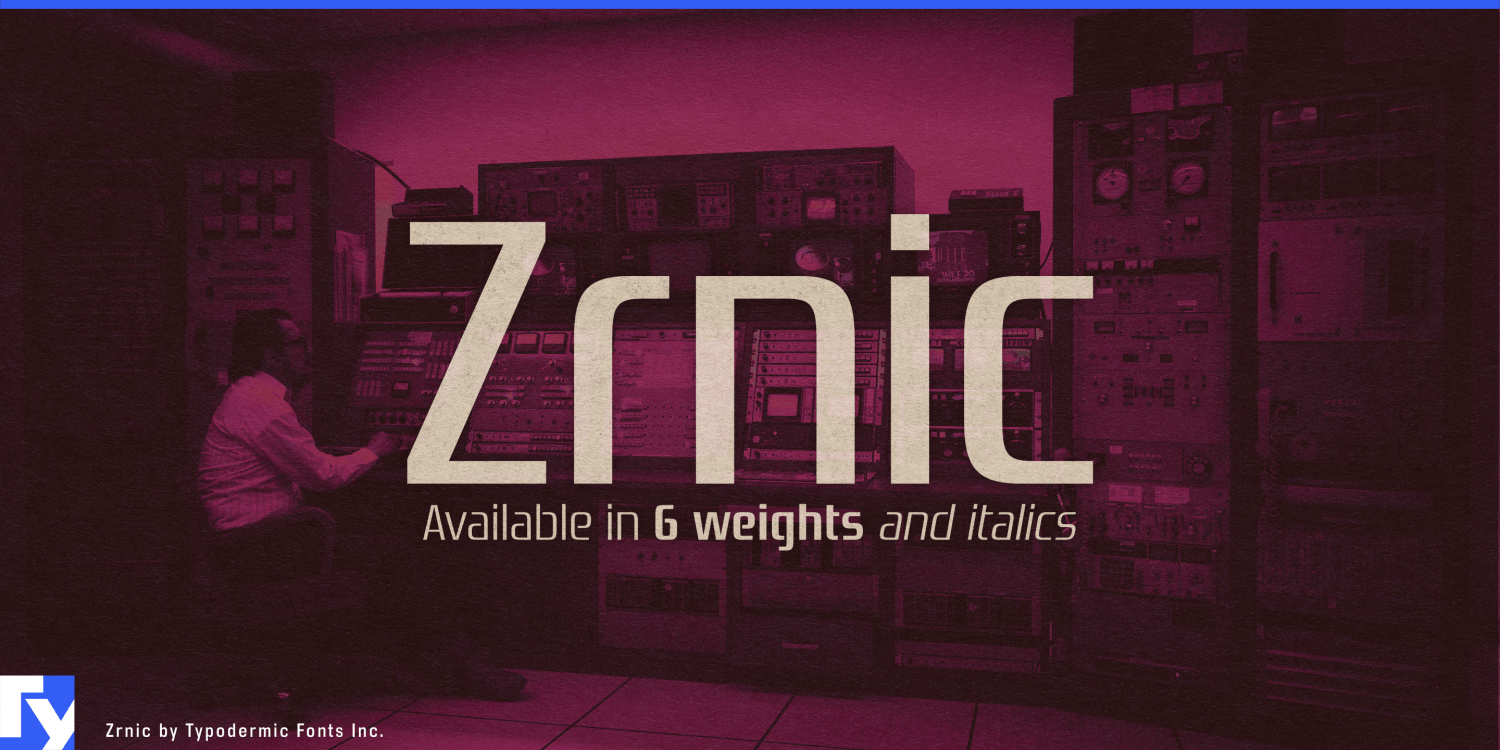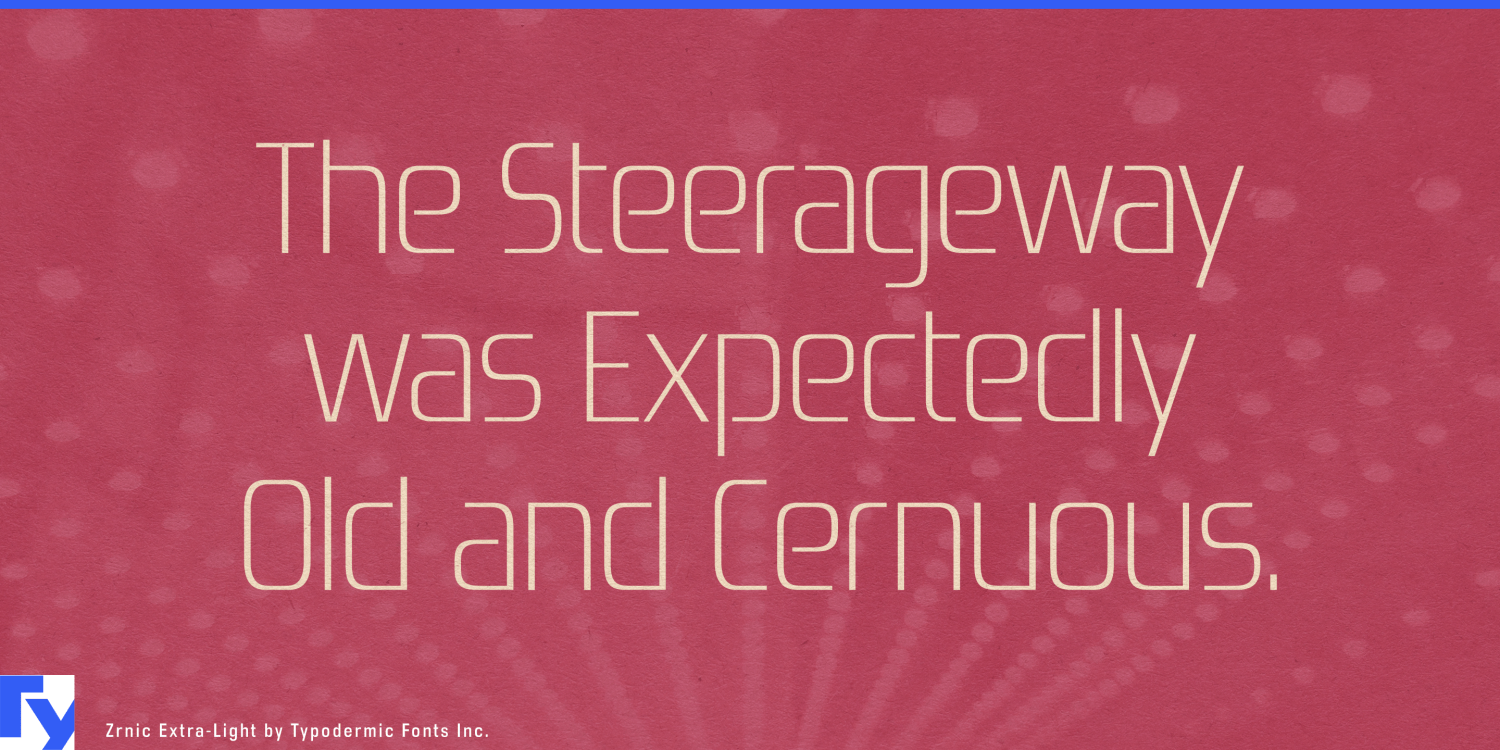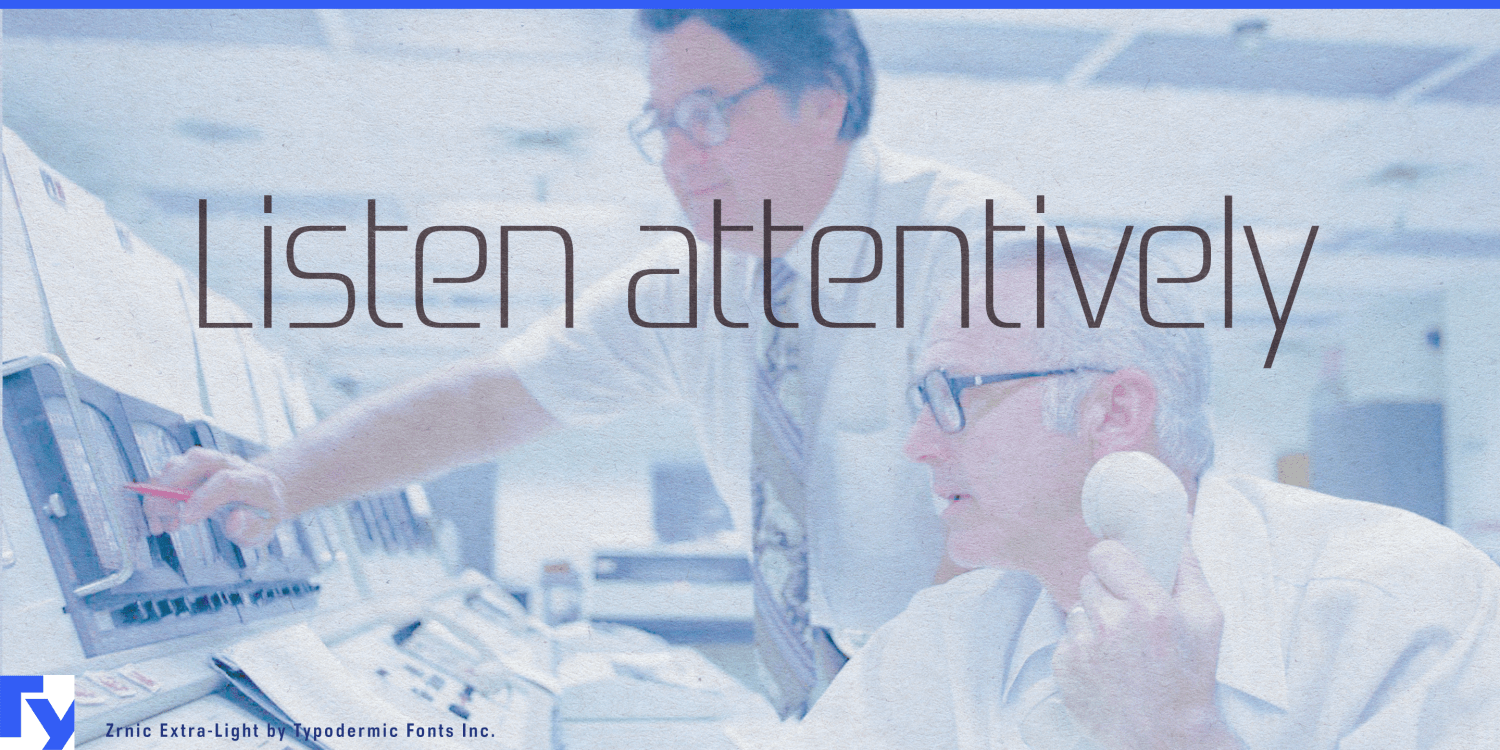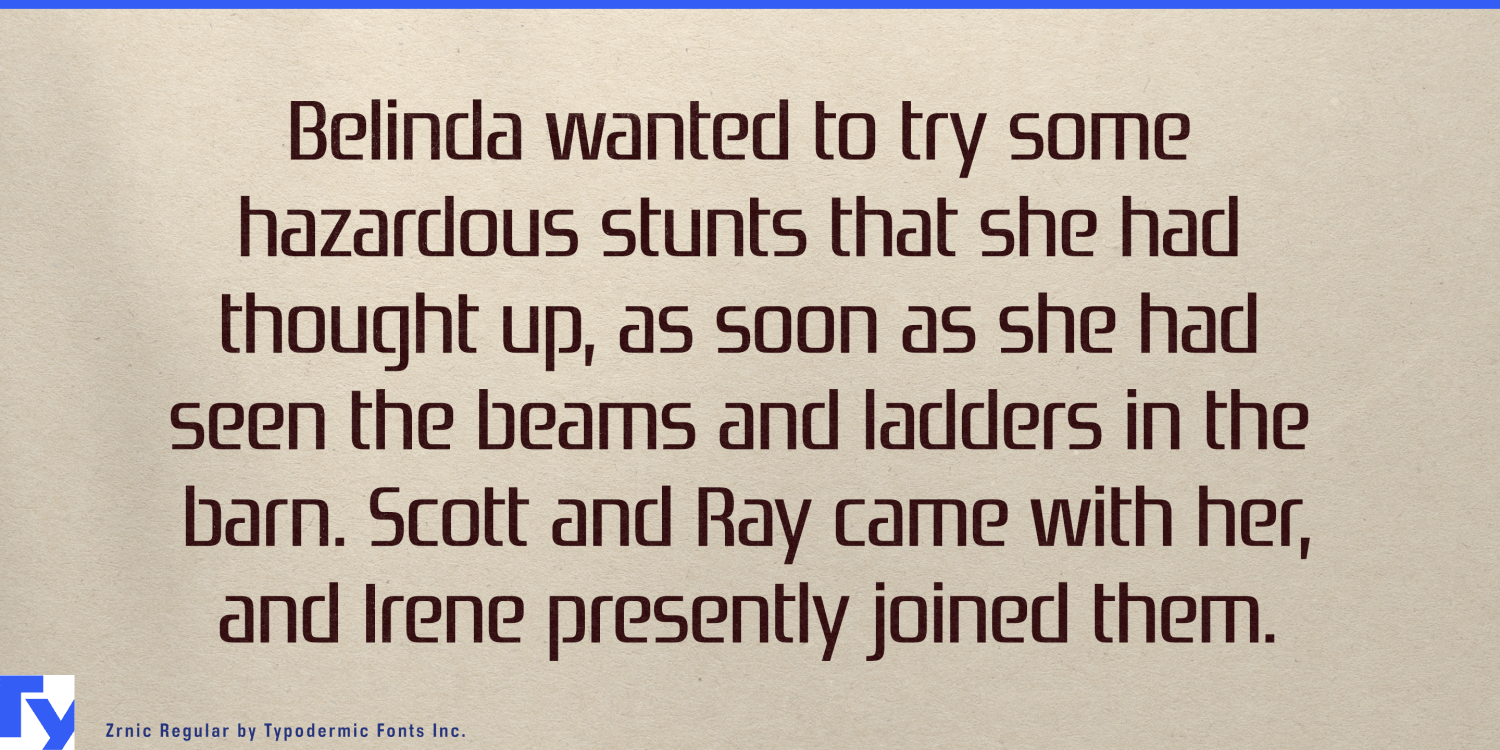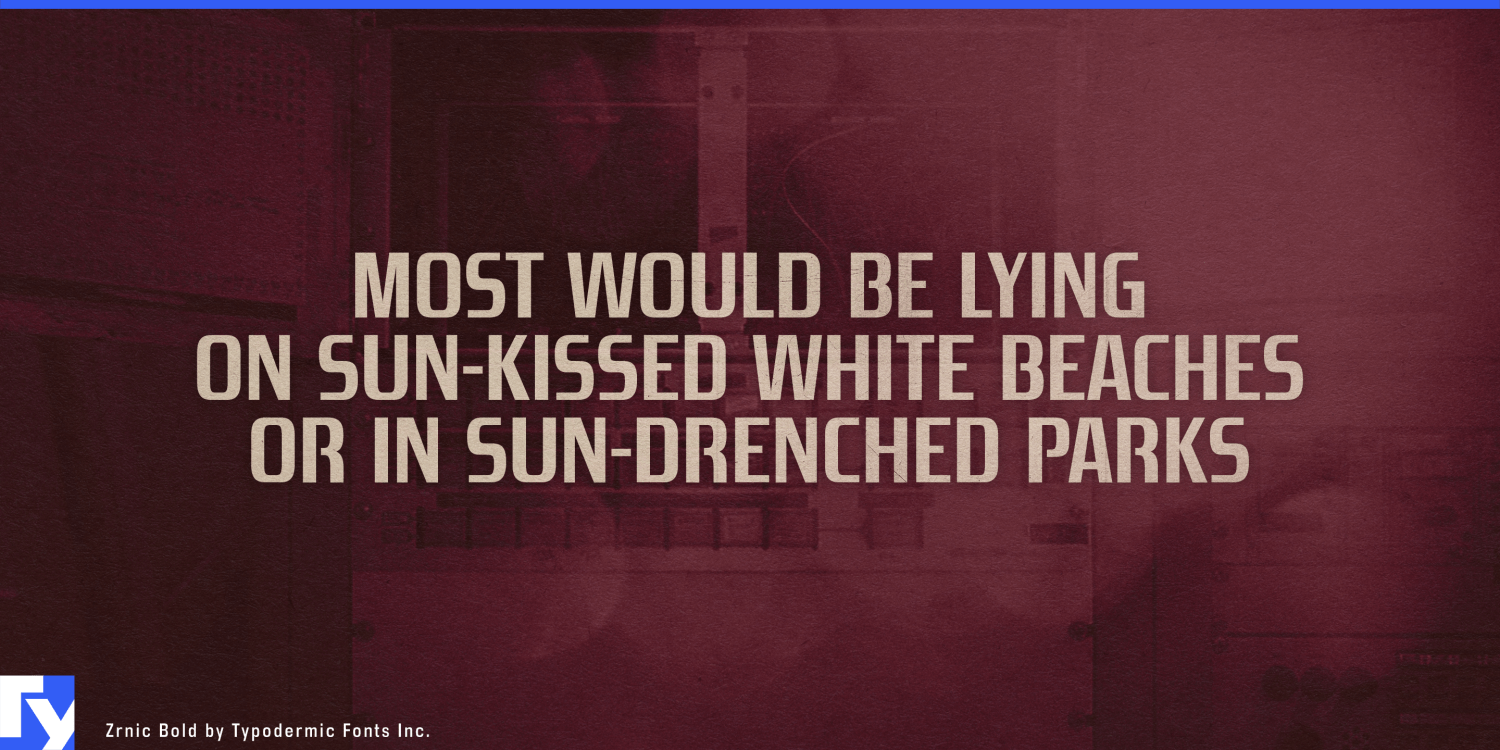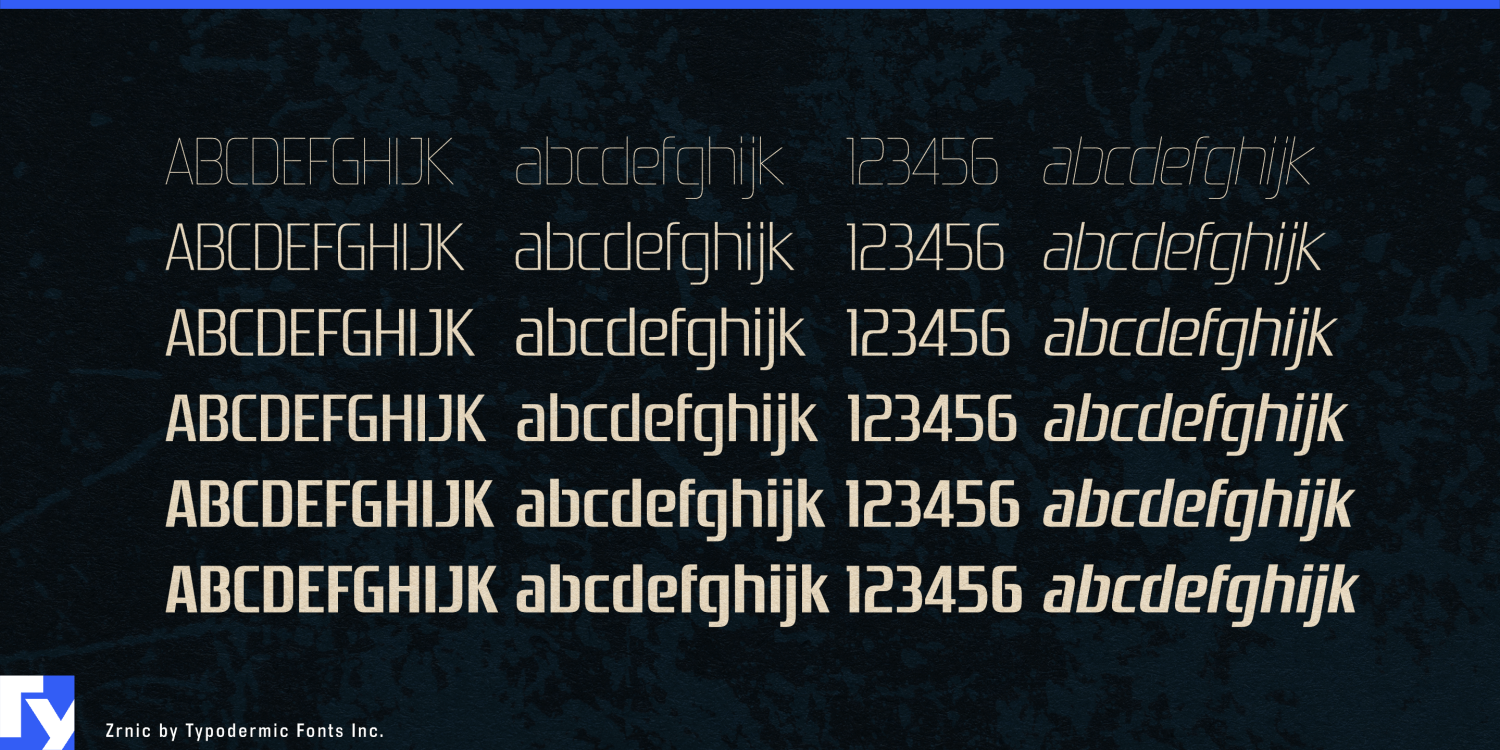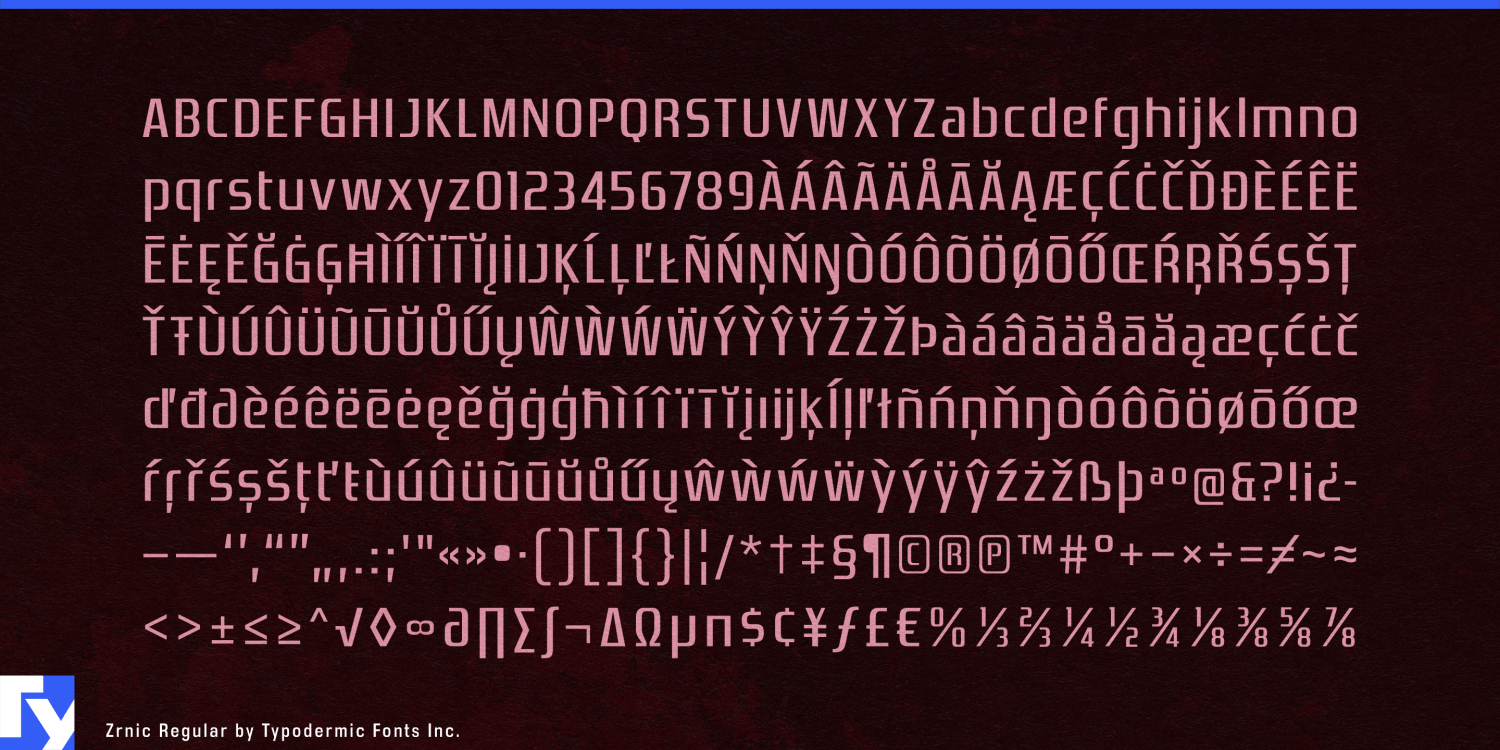
Zrnic
Zrnic approaches that problem through construction. Its rectangular forms are interrupted by strategic openings and clipped joins, giving letters the appearance of components fitted together without completely merging. The result suggests modularity and engineered assembly rather than generic futurism. A genuine lowercase lets that visual language continue through mixed-case platform names and short display copy instead of restricting it to all-caps badges.
Autonomous logistics is a particularly strong fit. Warehouse robots, autonomous forklifts, robotic picking systems, sortation modules, charging stations, and fleet-management platforms all belong to coordinated networks rather than operating as isolated products. Zrnic can handle AMR fleet names, robot-series graphics, warehouse automation platforms, cargo-routing systems, terminal technology, and trade-show displays.
Robotic construction and prefabricated building systems extend the same idea into architecture. Modular housing platforms, automated fabrication cells, façade systems, construction robots, prefabricated component families, and digital assembly technologies need identities that can bridge physical structures with software-controlled processes.
Industrial digital twins create another useful territory. Factory simulation platforms, facility-visualization systems, spatial maintenance tools, BIM-linked operations, and industrial XR products connect software representations to physical equipment. Zrnic can give platform names, visualization titles, module headings, training environments, and technology demonstrations a recognizable engineered character.
Infrastructure inspection systems combine another set of modular technologies: drones, autonomous crawlers, LiDAR units, thermal cameras, sensor pods, and monitoring software. Zrnic can carry drone-series names, payload identifiers, inspection-platform identities, control-center headings, and case-study graphics for bridge inspection, wind-turbine maintenance, solar-farm monitoring, power-line surveying, and pipeline assessment.
Smart-building systems offer a quieter application for the same visual idea. Building automation, connected HVAC, access control, environmental sensors, smart façades, lighting-control platforms, and energy-management systems increasingly operate as interconnected layers. Zrnic can give those product families, control platforms, sensor networks, brochures, and exhibition installations a technical identity that still feels appropriate around contemporary architecture.
Zrnic is most useful when the subject is not simply technology, but technology made from coordinated parts: fleets, modules, sensors, structures, software layers, and physical components working as one system.